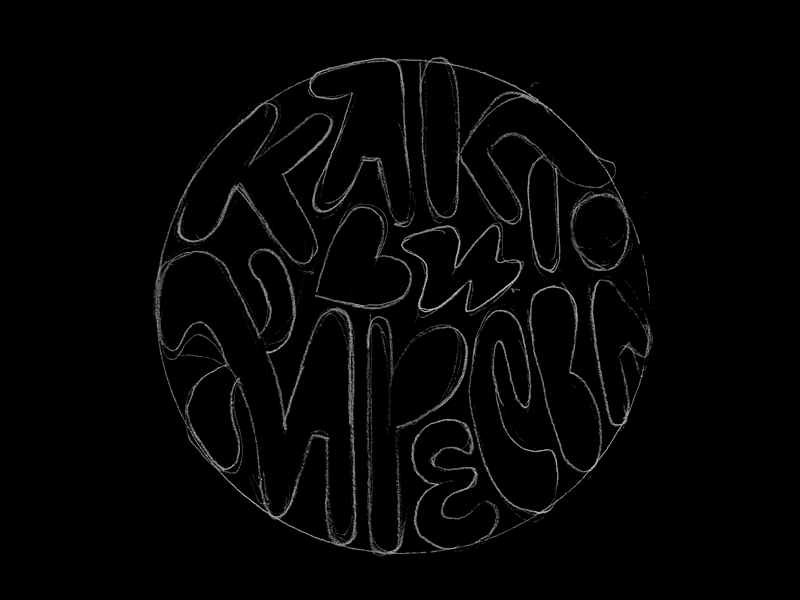
One for all
Client: Impro theater “Както ви харесва“
Project: Custom lettering
Work by: Todor Georgiev
Year: 2018
We made this quirky custom lettering for our hilarious friends at “Както ви харесва“. They approached us with a logo design brief for their improvisational theater group named “However you like it”. The various forms, proportions and sizes of the letters are a reference to the diversity of the actors. We did our best incorporate the feeling of the impro group into our design. In order to do that we constructed the letters to fit as if in a puzzle – a reference to improvisation and togetherness. We also added some ligatures here and there to represent the relationship between the actors.